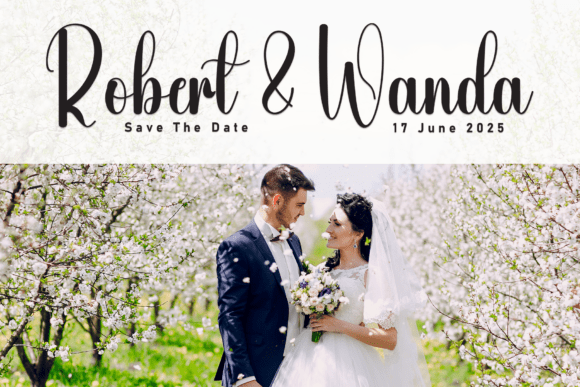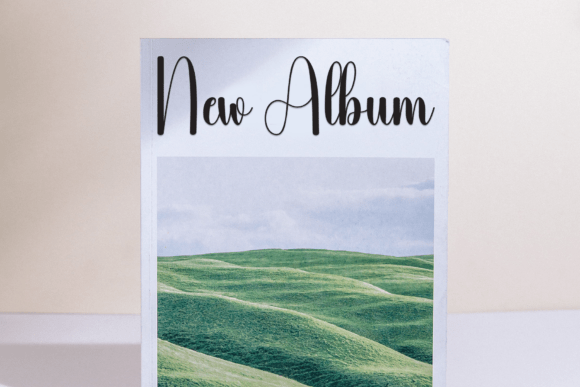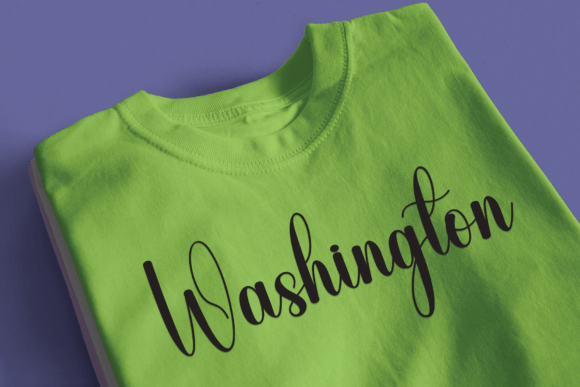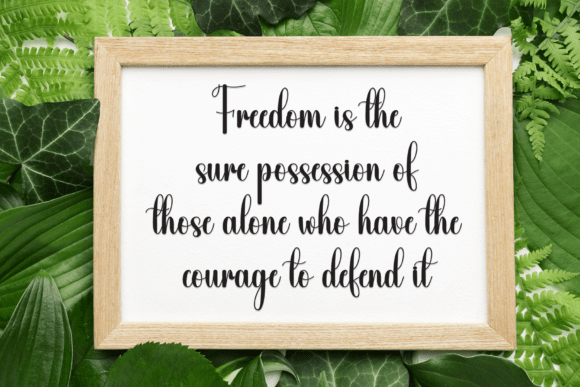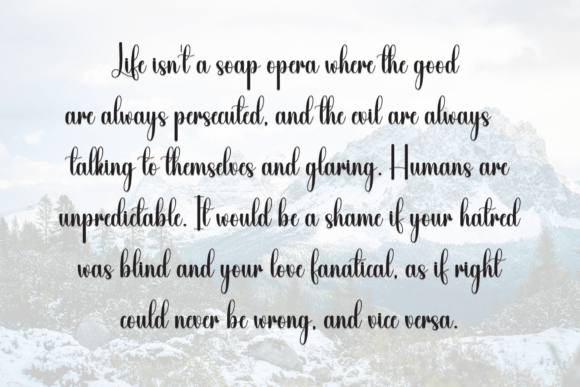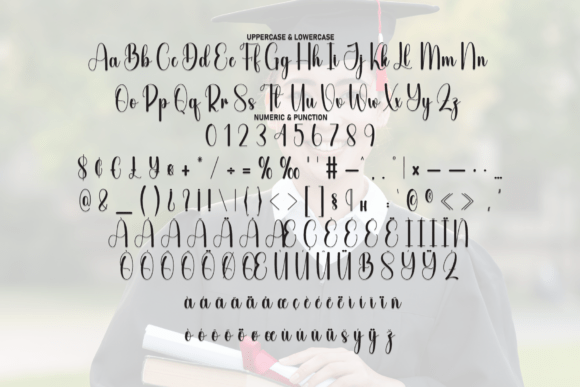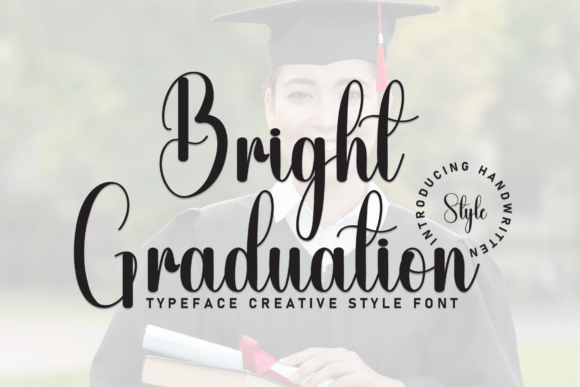
Introducing Bright Graduation: The Ultimate Stylish Script Font for Modern Designers
In the world of typography, few fonts manage to capture the essence of artistic flair and contemporary elegance as effectively as Bright Graduation. This stunning script font is a masterpiece of modern calligraphy, boasting fluid brush strokes, dynamic curves, and expressive letterforms that will elevate any design project to new heights. Whether you’re a seasoned designer or a crafty enthusiast, Bright Graduation is the perfect tool to add a creative and sophisticated touch to your work.
The Art of Hand-Painted Calligraphy: A Modern Twist
Bright Graduation draws inspiration from the traditional art of hand-painted calligraphy, but with a modern twist that sets it apart from more conventional fonts. The result is a unique and captivating typography that exudes a sense of freshness and originality. The font’s fluid brush strokes and dynamic curves give it a natural flow that is both visually striking and highly legible.
One of the key benefits of Bright Graduation is its incredible versatility. This font is perfect for a wide range of design applications, from logos and invitations to packaging and social media graphics. Its artistic flair and contemporary elegance make it an excellent choice for designers looking to create stunning visual content that stands out from the crowd.
Perfect for:
• Logos: Create a lasting impression with a custom logo that showcases your brand’s personality and style.
• Invitations: Make your special events unforgettable with beautifully designed invitations that set the tone for a memorable experience.
• Packaging: Elevate your product’s packaging with a stylish and eye-catching design that reflects your brand’s values and aesthetic.
• Social Media Graphics: Boost your online presence with stunning social media graphics that showcase your creativity and style.
Key Features of Bright Graduation
So what makes Bright Graduation such a standout font? Here are just a few of its key features:
• Fluid Brush Strokes: The font’s fluid brush strokes give it a natural, hand-painted feel that is both artistic and expressive.
• Dynamic Curves: The dynamic curves and swirling letterforms add a sense of movement and energy to the font.
• Expressive Letterforms: Each letterform is carefully crafted to convey a sense of personality and style.
• Vibrant Character: The font’s vibrant character makes it perfect for designs that require a bold and eye-catching typography.
Why Choose Bright Graduation?
With so many fonts available, why choose Bright Graduation? Here are just a few reasons why this font stands out from the rest:
• Unique and Original: Bright Graduation is a one-of-a-kind font that will set your designs apart from the crowd.
• Highly Versatile: The font’s versatility makes it perfect for a wide range of design applications.
• Exceptional Quality: The font is crafted with exceptional quality and attention to detail, ensuring a flawless performance in any design.
In conclusion, Bright Graduation is a stylish script font that is sure to revolutionize your design workflow. With its fluid brush strokes, dynamic curves, and expressive letterforms, this font is the perfect tool for designers and crafters looking to add a creative and sophisticated touch to their work. Whether you’re creating logos, invitations, packaging, or social media graphics, Bright Graduation is the ultimate choice for anyone looking to make a lasting impression.